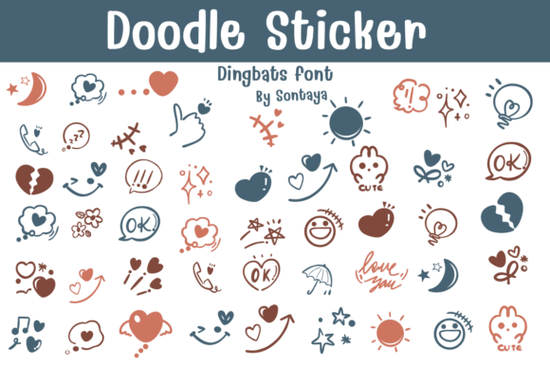
If you're looking for a playful, hand-drawn typeface that works across multiple design tools, the Doodle Sticker Font might be exactly what you need. It's a dingbats-style doodle font packed with cartoon-style characters, outlines, and sticker-like illustrations you can use in personal projects, client work, and even commercial designs. Whether you work in Procreate, Affinity Designer, Affinity Photo, or traditional desktop apps, this font comes in both OTF and TTF formats so you're covered on nearly any platform.
What Can You Actually Make With a Doodle Sticker Font?
A lot more than you might think. This type of dingbats doodle cartoon font gives you access to ready-made illustrations that you don't have to draw from scratch. Here are a few real-world uses:
- Sticker sheets for planners, journals, and kids' activities
- T-shirt designs for print-on-demand shops
- Greeting cards and invitations with a hand-drawn feel
- Social media graphics and Instagram story templates
- Coloring pages using the coloring outline style characters
- Scrapbook elements and die-cut files
- Packaging and labels for small businesses
The Doodle Sticker Font works especially well when you need quick, consistent illustrations without hiring an illustrator or spending hours drawing by hand.
What's the Difference Between Doodle Fonts and Dingbats Fonts?
They're closely related. A dingbats font replaces standard letters with symbols, icons, or illustrations. A doodle font does the same but with a hand-sketched, cartoon-style aesthetic. The Doodle Sticker Font falls into both categories each key you press produces a unique doodle illustration instead of a letter.
This makes it ideal for projects where you want a consistent art style without using separate image files. If you've been browsing options like the firework doodle collection font, you'll find this one follows a similar concept but with its own distinct sticker-themed character set.
How Is the Coloring Outline Style Useful?
One standout feature of this font is the coloring outline variation. Instead of filled-in illustrations, you get clean outlines that are perfect for:
- Creating coloring pages for kids or adults
- Designing interactive activity sheets
- Making SVG-friendly artwork for cutting machines like Cricut or Silhouette
Print-on-demand sellers often use outline-style doodle fonts to create coloring books on platforms like Amazon KDP. The outlines are clean enough to reproduce well at various sizes, which matters when you're working with different paper formats.
Who Is This Font Best For?
This font works well for a range of creative professionals and hobbyists:
- Print-on-demand sellers who need quick, consistent doodle graphics for t-shirts, mugs, and stickers
- Graphic designers looking for hand-drawn elements without commissioning custom illustrations
- Teachers and parents creating worksheets, activity pages, or classroom materials
- Small business owners designing their own packaging, labels, or promotional materials
- Crafters working on planner stickers, scrapbooking, or journal embellishments